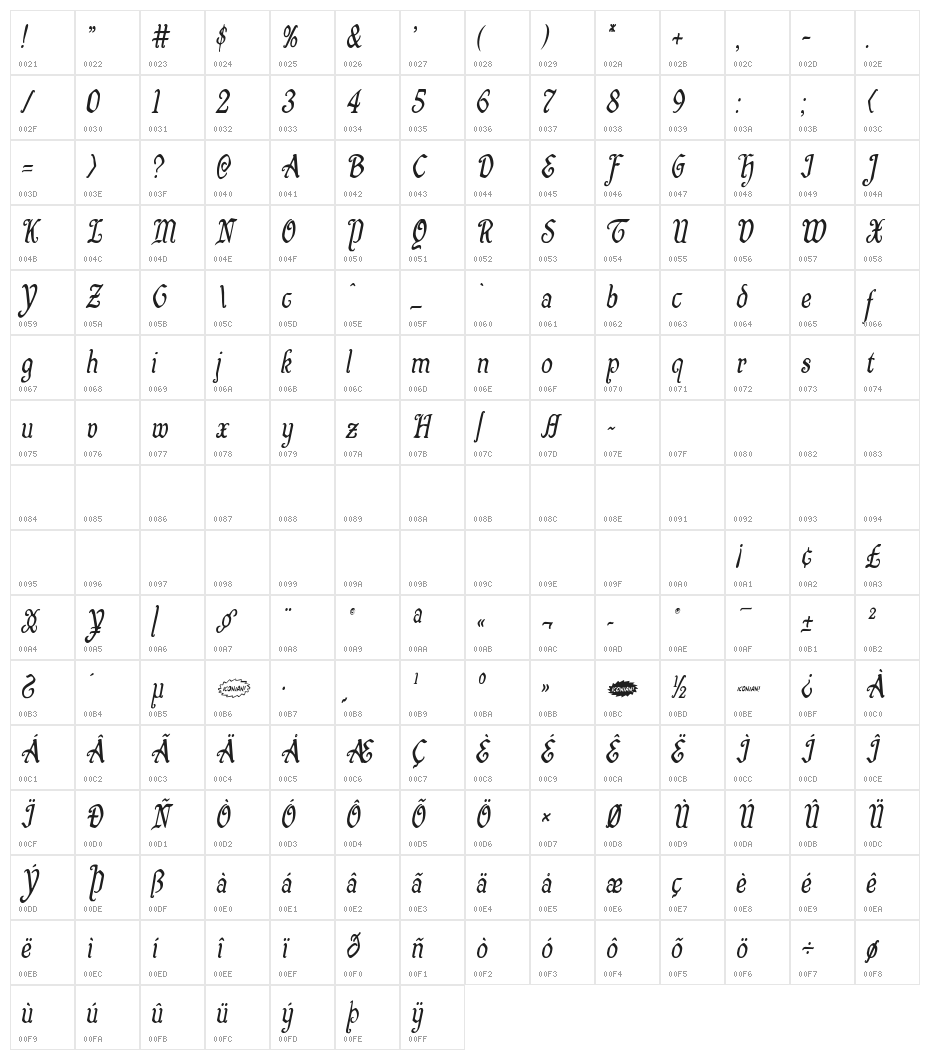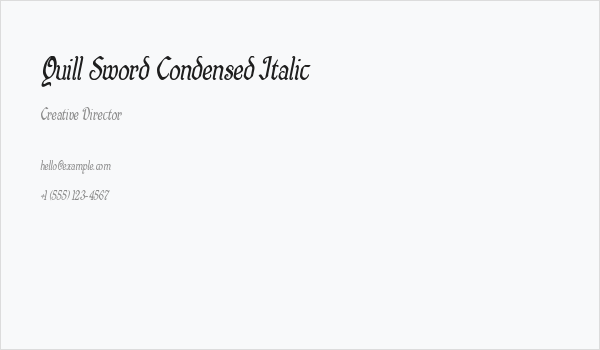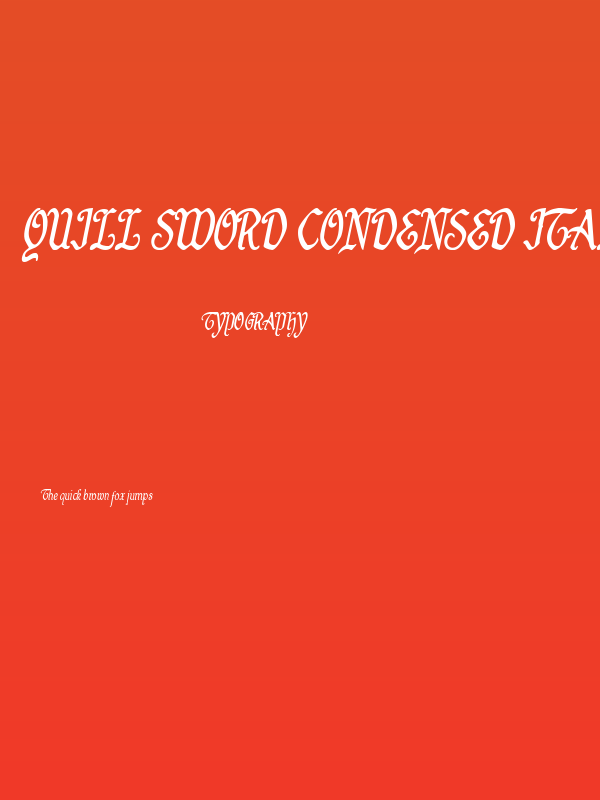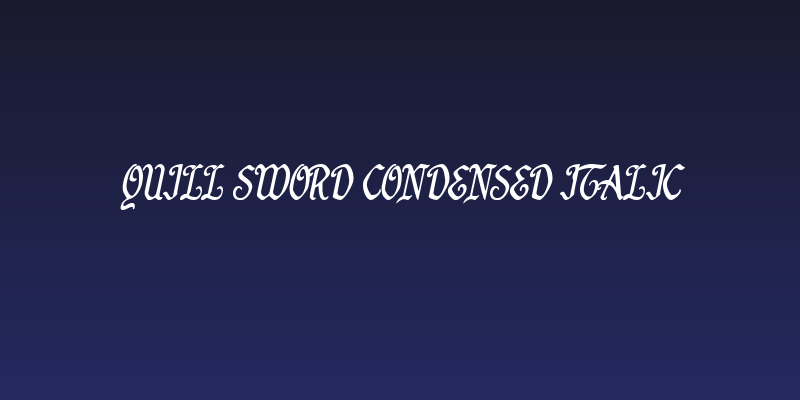
Quill Sword Condensed Italic Font
Quill Sword Condensed Italic Description
This font features a dynamic and elegant style, characterized by its flowing, cursive letterforms that evoke a sense of movement and grace. The condensed nature of the font allows for efficient use of space while maintaining readability. Each character is crafted with a slight slant, enhancing its italicized appearance. The strokes are moderately thick, providing a medium contrast that balances the decorative elements with legibility. The font's unique flair is evident in the intricate detailing of each letter, making it suitable for projects that require a touch of sophistication and artistic expression.
| Proposed Projects | Ideal for wedding invitations, elegant branding, artistic posters, and decorative headings. |